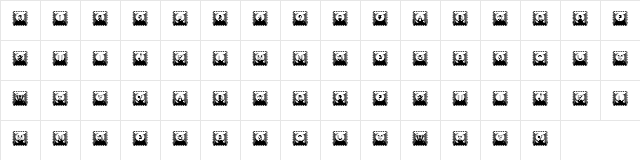
Impression Vintage Regular
Design Context for Impression Vintage Typeface
Impression Vintage wears its vintage influences proudly, with letterforms that recall mid-century signage, classic packaging, and nostalgia-driven design.
Font Pairing: Combine Impression Vintage with a simple slab or neutral sans — period-accurate companions reinforce the vintage feel without competing for attention.
Pro Tip: Lean into Impression Vintage's period character by pairing it with aged paper textures, muted colour palettes, and vintage illustration styles.